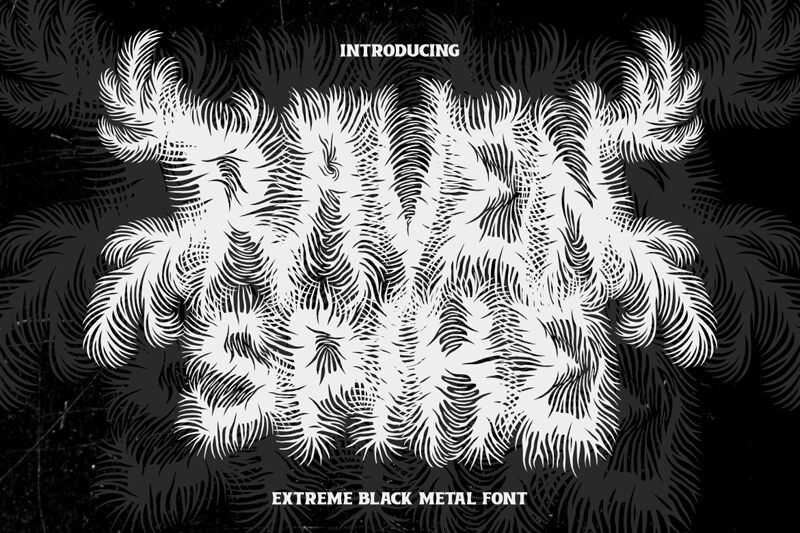
Raven Spike font family by PutraCetol Studio is a dense and aggressive free Gothic typeface with a striking intimidating character. It is angry, loud, and chaotic, in an unmissable manner. Strong diagonals, long verticals, and disprovable technical detail complete each of its 2 font styles. Each letter is a piece with a spirit and voice of its own. Attention to detail is as important as attention to the font in its entirety. Any designer would agree at first glance.
Inspired by heavy metal music bands, their album covers, and merchandise designs, it is suitable for a similar theme. Dark visual projects that need a punch of textured type will work perfectly in combination with Raven Spike. Examples include books, posters, and even apparel when used appropriately.